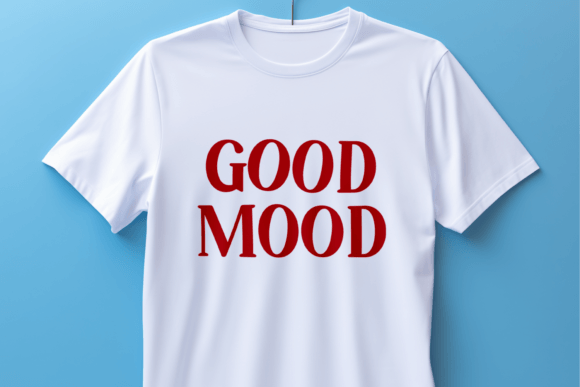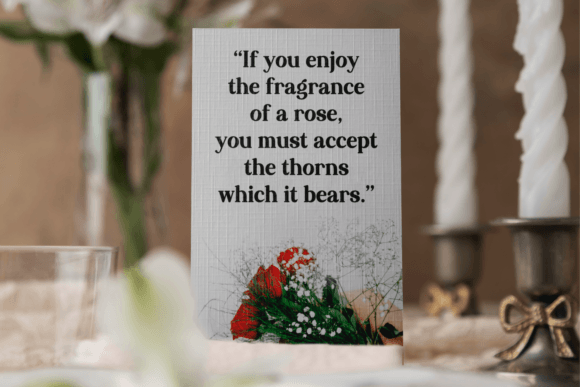
Introducing Chunky Blushing Font: The Perfect Choice for Headlines and Invitations
Are you looking for a font that can add a touch of playfulness and charm to your designs? Look no further than the Chunky Blushing font! This bold, serif font with rounded edges is perfect for creating eye-catching headlines and invitations that are sure to leave a lasting impression.
What is Chunky Blushing Font?
Chunky Blushing is a unique and stylish font that combines the classic look of serif fonts with a modern, playful twist. The font features rounded edges and a chunky design, giving it a friendly and approachable feel that’s perfect for a wide range of design projects. Whether you’re creating a bold headline or a beautiful invitation, Chunky Blushing is the perfect choice.
Key Features of Chunky Blushing Font
- Bold and Playful Design: Chunky Blushing is a bold font with a playful personality that’s sure to grab attention.
- Rounded Edges: The font features rounded edges, giving it a soft and friendly feel.
- Serif Font: Chunky Blushing is a serif font, adding a touch of classic elegance to your designs.
- Perfect for Headlines and Invitations: The font is specifically designed for use in headlines and invitations, making it perfect for a wide range of design projects.
Why Choose Chunky Blushing Font?
There are many reasons why Chunky Blushing font is the perfect choice for designers and crafters. Here are just a few:
- Unique and Eye-Catching: The font’s bold and playful design makes it perfect for creating eye-catching headlines and invitations that are sure to stand out.
- Versatile: Chunky Blushing is a versatile font that can be used in a wide range of design projects, from party invitations to advertising campaigns.
- Easy to Read: Despite its bold design, Chunky Blushing is easy to read, making it perfect for use in headlines and titles.
- High-Quality Design: The font is designed to high standards, ensuring that it looks great in any design project.
How to Use Chunky Blushing Font
Chunky Blushing font is easy to use and can be incorporated into a wide range of design projects. Here are a few ideas to get you started:
- Party Invitations: Use Chunky Blushing to create eye-catching party invitations that are sure to get your guests excited.
- Headlines: The font is perfect for use in headlines, adding a touch of playfulness and charm to your designs.
- Advertising Campaigns: Chunky Blushing can be used in advertising campaigns to add a touch of personality and whimsy.
- Signage: The font is also perfect for use in signage, making it a great choice for businesses and organizations looking to create eye-catching signs.
Tips for Getting the Most Out of Chunky Blushing Font
Here are a few tips for getting the most out of Chunky Blushing font:
- Use it Sparingly: While Chunky Blushing is a beautiful font, it’s best used sparingly. Use it for headlines and titles, and a more simple font for body text.
- Experiment with Colors: The font looks great in a wide range of colors, so don’t be afraid to experiment and find the perfect color for your design.
- Pair it with Other Fonts: Chunky Blushing can be paired with other fonts to create a unique and eye-catching design.
Chunky Blushing font is a bold, playful serif font with rounded edges and a charming personality that’s perfect for headlines and invitations. With its unique and eye-catching design, versatility, and ease of use, it’s the perfect choice for designers and crafters looking to add a touch of personality and whimsy to their designs. So why not give Chunky Blushing a try and see the difference it can make in your designs?